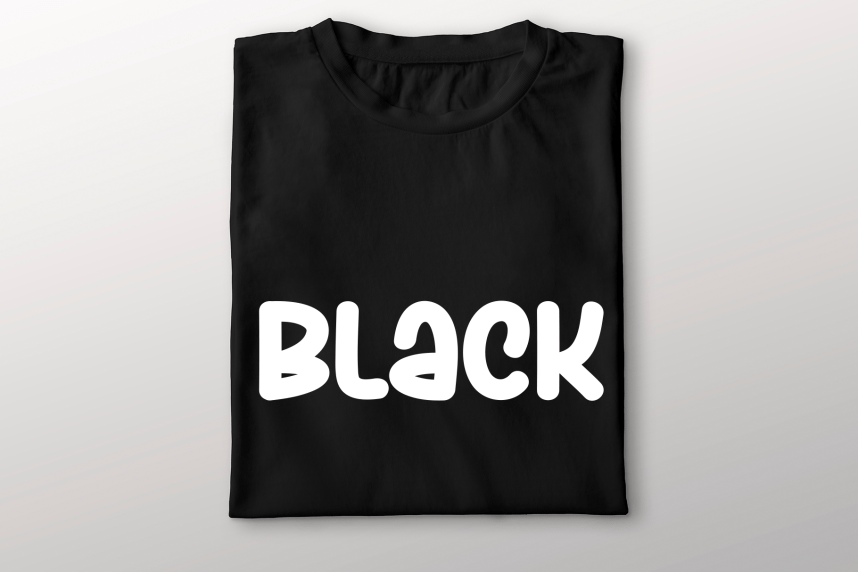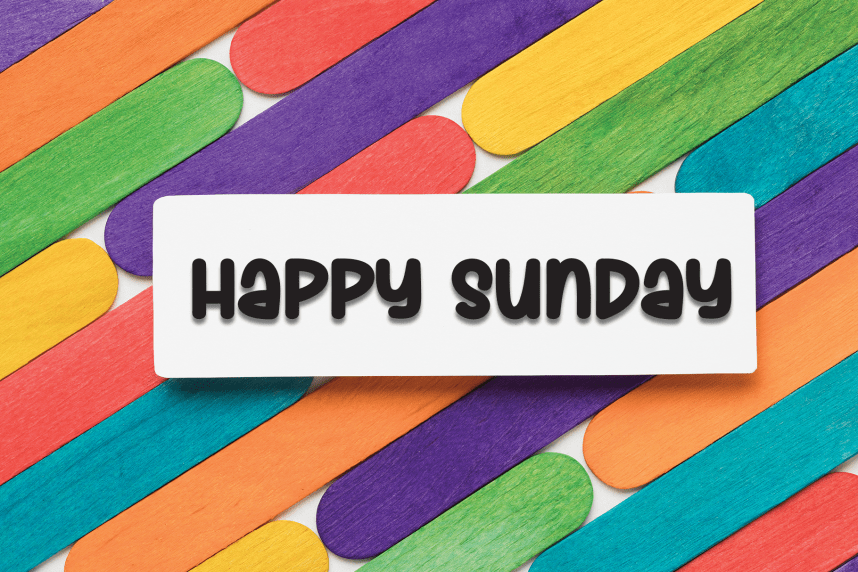
Paper Teacher – Playful And Unique Font
Paper Teacher – Playful And Unique Font is a sweet and friendly handwritten display font. Cute and fun, this font is ideal for writing wedding invitations, cards, or any other design that might need a playful touch!